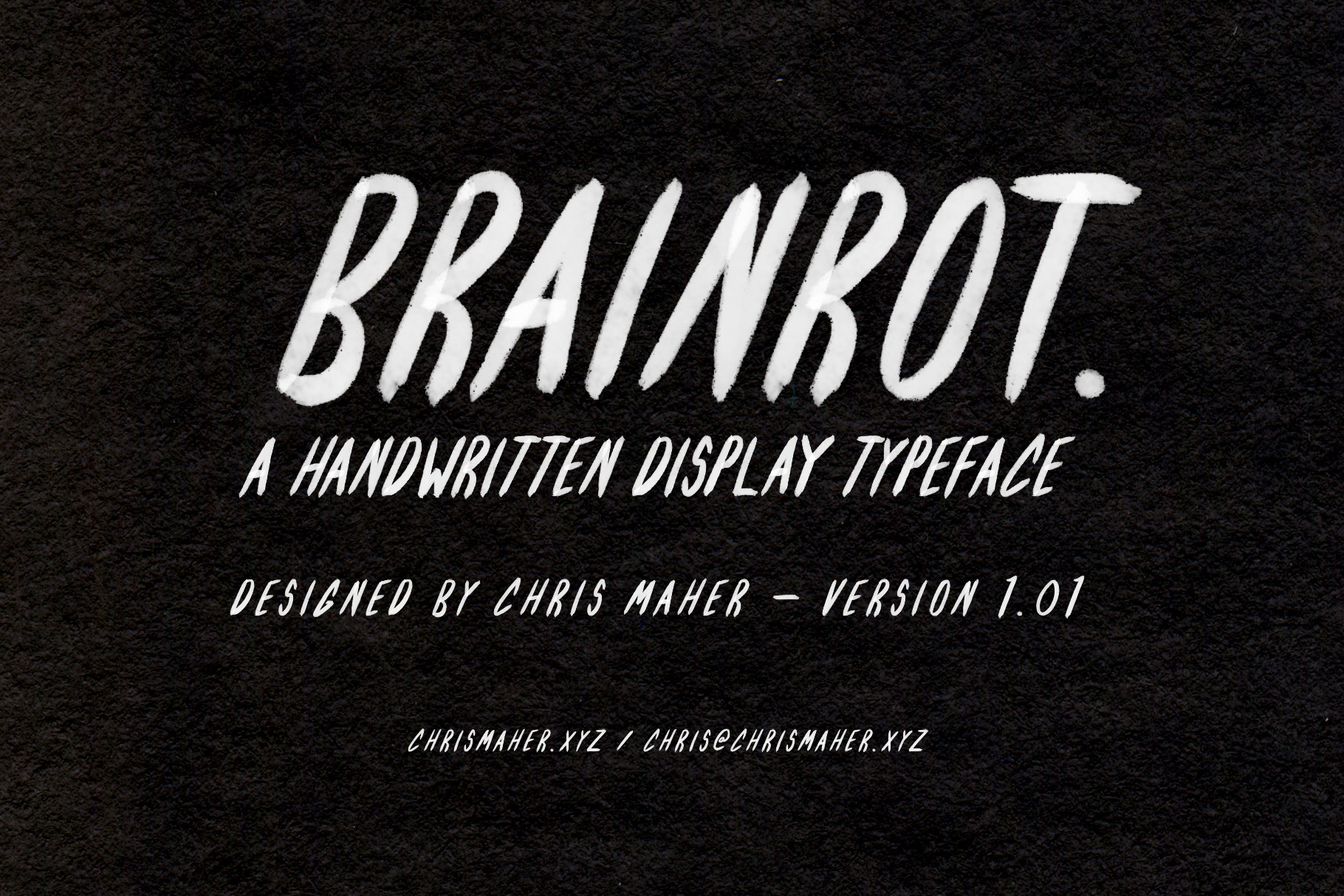
BRAINROT - Handwritten Typeface
Finally, a typeface to show your brain is all mush— BRAINROT. A bold, handwritten display typeface for those who were raised on cartoons, games, music, comics, and everything else that supposedly rots your brain.
- Brainrot Marker — Black and White: Two OpenType typefaces, bitmap based. Only set in Black and White, but features amazing texture.
- Brainrot — Busy Brain: A textured vector version, many ridges.
- Brainrot — Smooth Brain: Vector font, no wrinkles.
All uppercase (Latin A-Z), no lowercase, includes numbers, punctuation, ligatures, European Glyphs (with more to come in future versions).